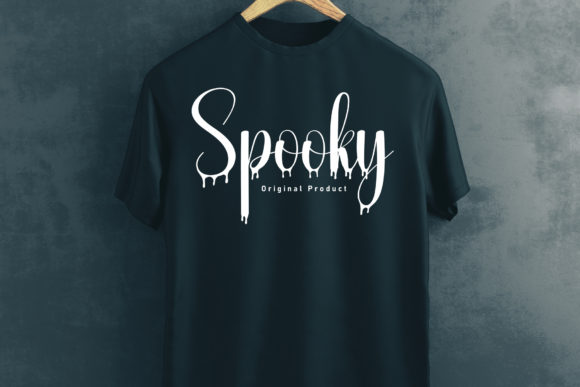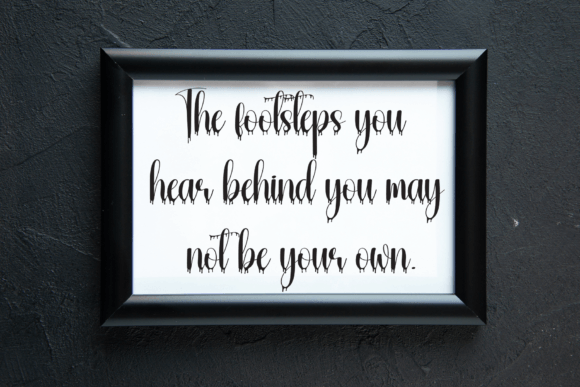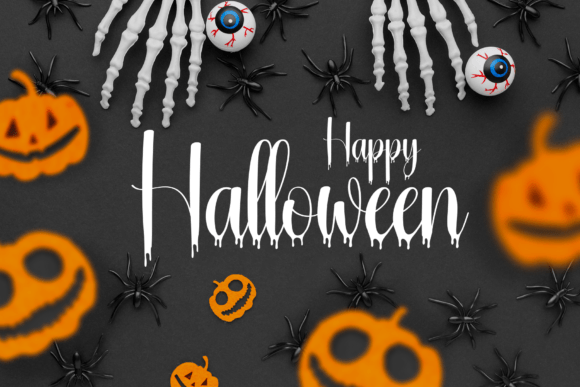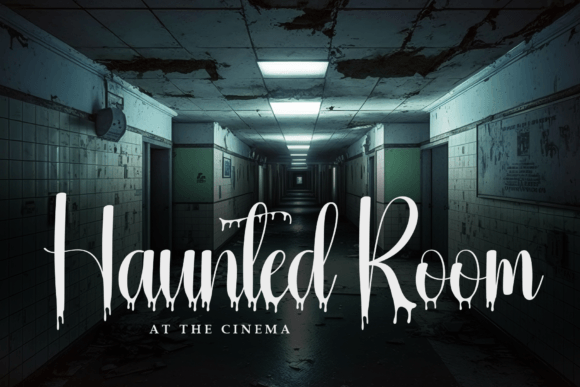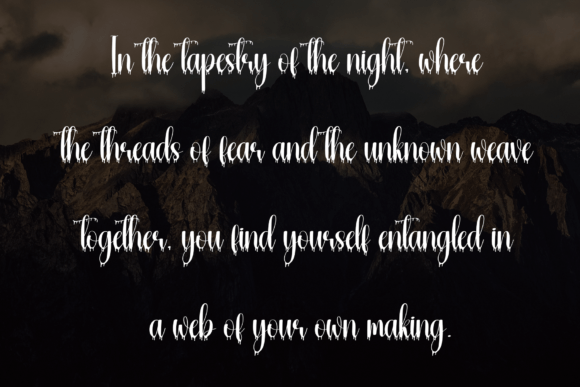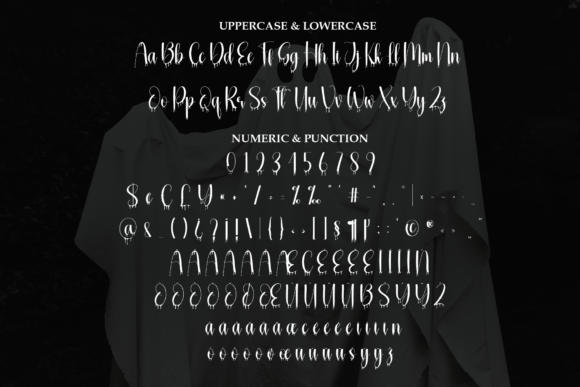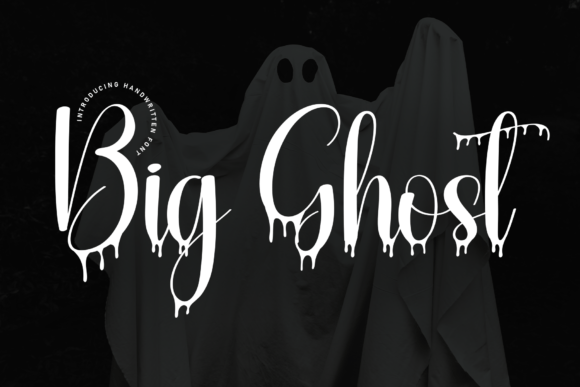
The Spooky Charm of Big Ghost Font: A Designer’s Delight
I’ll never forget the time I was working on a Halloween-themed project for a client, and I just couldn’t find the right font to capture the spooky essence. The client wanted something that would send shivers down the spine, but still be legible and visually appealing. After hours of scouring the internet, I stumbled upon Big Ghost Font, and it was love at first sight! 💀
Big Ghost is a cool and spooky handwritten script font that has become a staple in my design toolkit. Its unique look is perfect for creating amazing Halloween or horror-themed designs that will leave your audience in awe. In this article, I’ll share my honest review of Big Ghost Font, provide a practical guide on how to use it, and explore similar fonts that you might enjoy.
- Unique and eye-catching design that’s perfect for Halloween or horror-themed projects 🎃
- Great for creating spooky titles, headings, and quotes 📚
- Supports OpenType features, glyphs, and stylistic alternates for added versatility 🎨
- Easy to read and understand, even in larger blocks of text 📖
- May not be suitable for very small text sizes or body text due to its decorative nature ⚠️
- Some characters may not work well in all contexts, requiring manual kerning or adjustment 🔧
The Story Behind Big Ghost Font
Big Ghost Font was created by a talented designer who wanted to capture the essence of Halloween and horror in a single font. Inspired by creepy old mansions, abandoned cemeteries, and spooky tales, Big Ghost is the perfect font for anyone looking to add a touch of darkness to their designs. 🕷️
Q: What is Big Ghost Font best used for?
A: Big Ghost Font is perfect for creating Halloween or horror-themed designs, such as posters, flyers, and social media graphics. 🎃
Q: Is Big Ghost Font easy to read?
A: Yes, Big Ghost Font is relatively easy to read, even in larger blocks of text. However, it may not be suitable for very small text sizes or body text. 📖